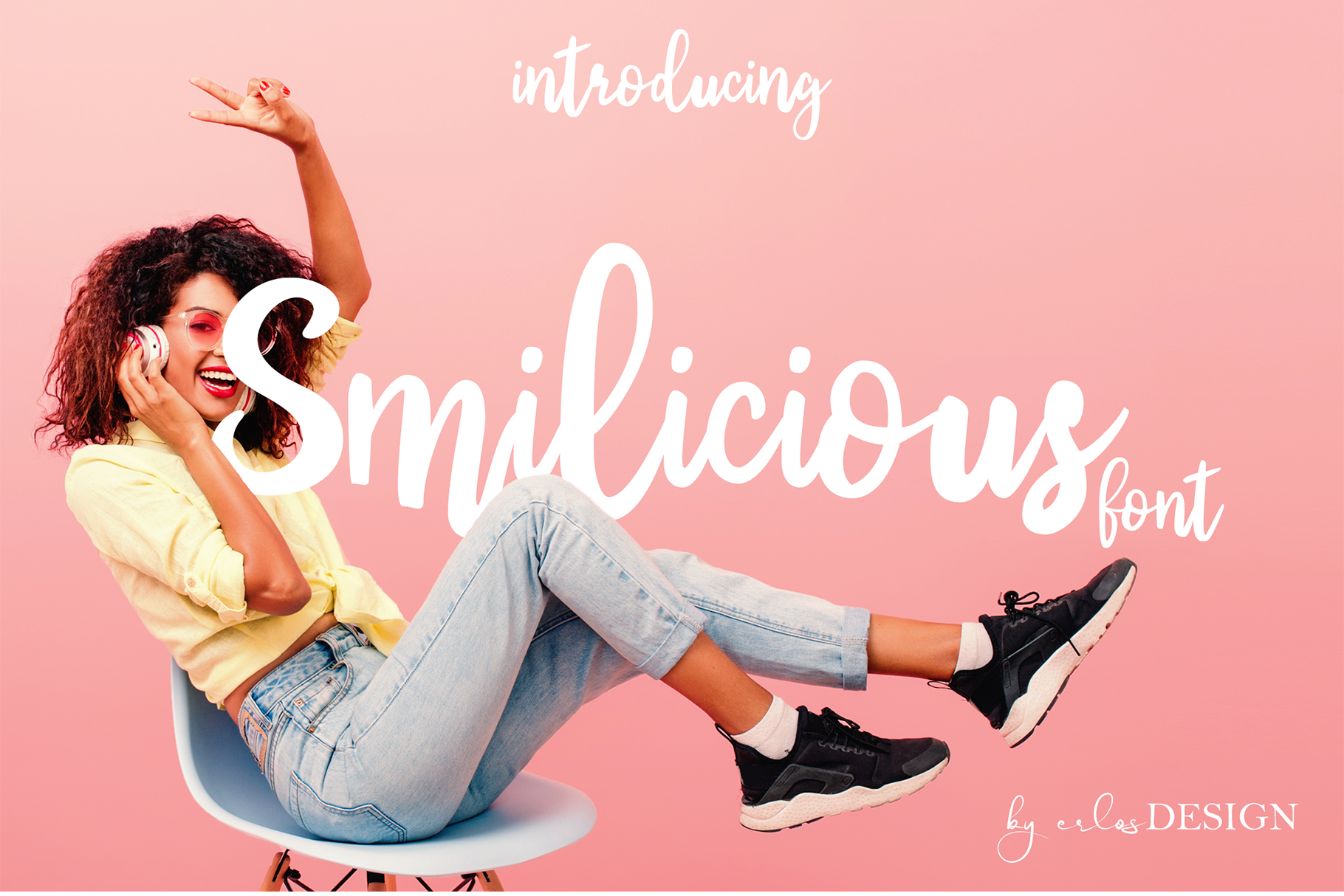
Smilicious - Signature Font
Smilicious - Calligraphy Script by erlosDESIGN
Smilicious is a modern calligraphy script, with a smooth line, dancing baseline, and elegant touch. It can be used for various purposes such as headings, logos, birthday invitation, t-shirt, letterhead, posters and much more.